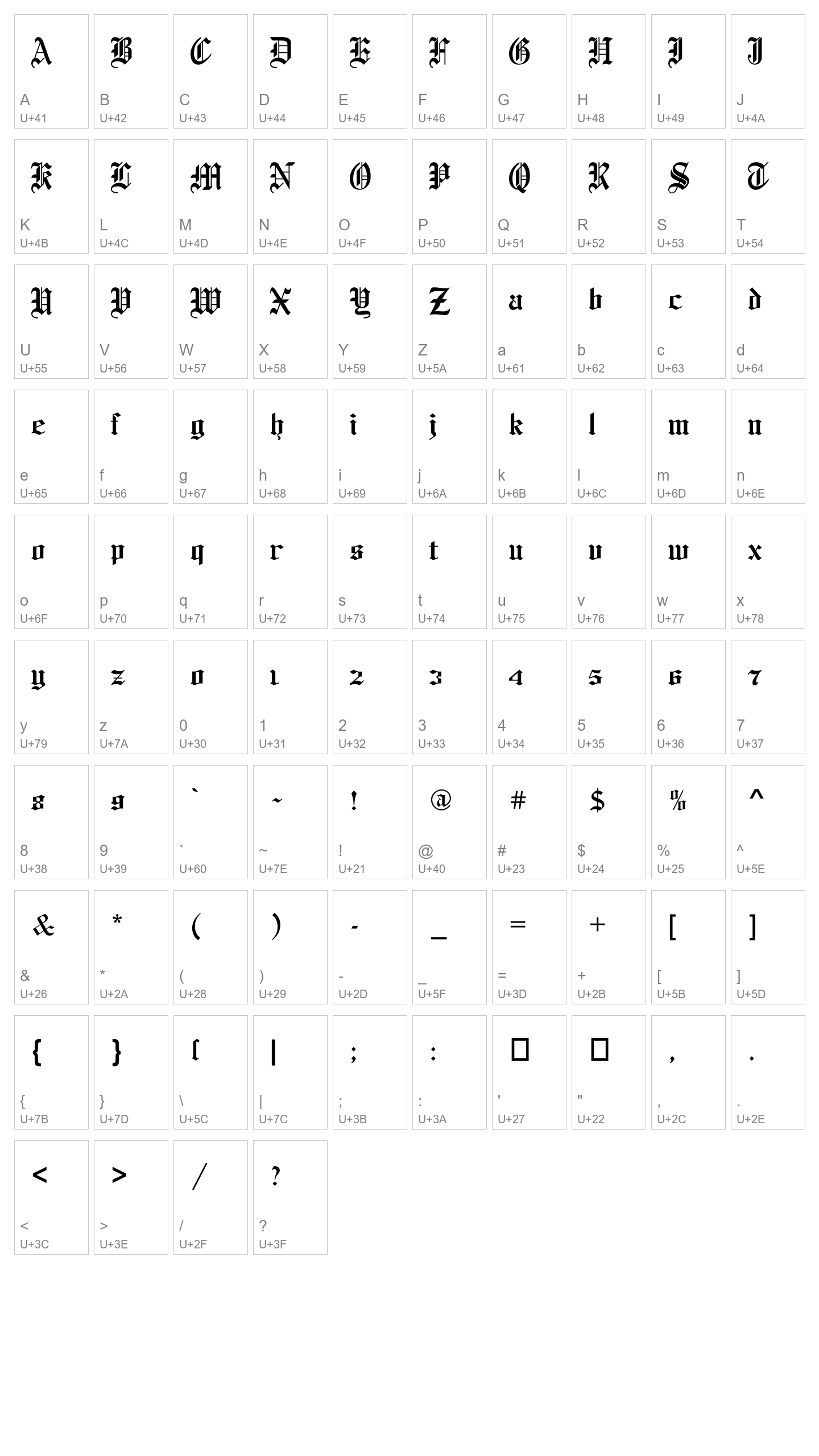
Bayone
Bayone is a bold, distinct and elegant blackletter font. Add it confidently to your projects, and you will love the results.Bayone is a bold, distinct and elegant blackletter font. Add it confidently to your projects, and you will love the results.